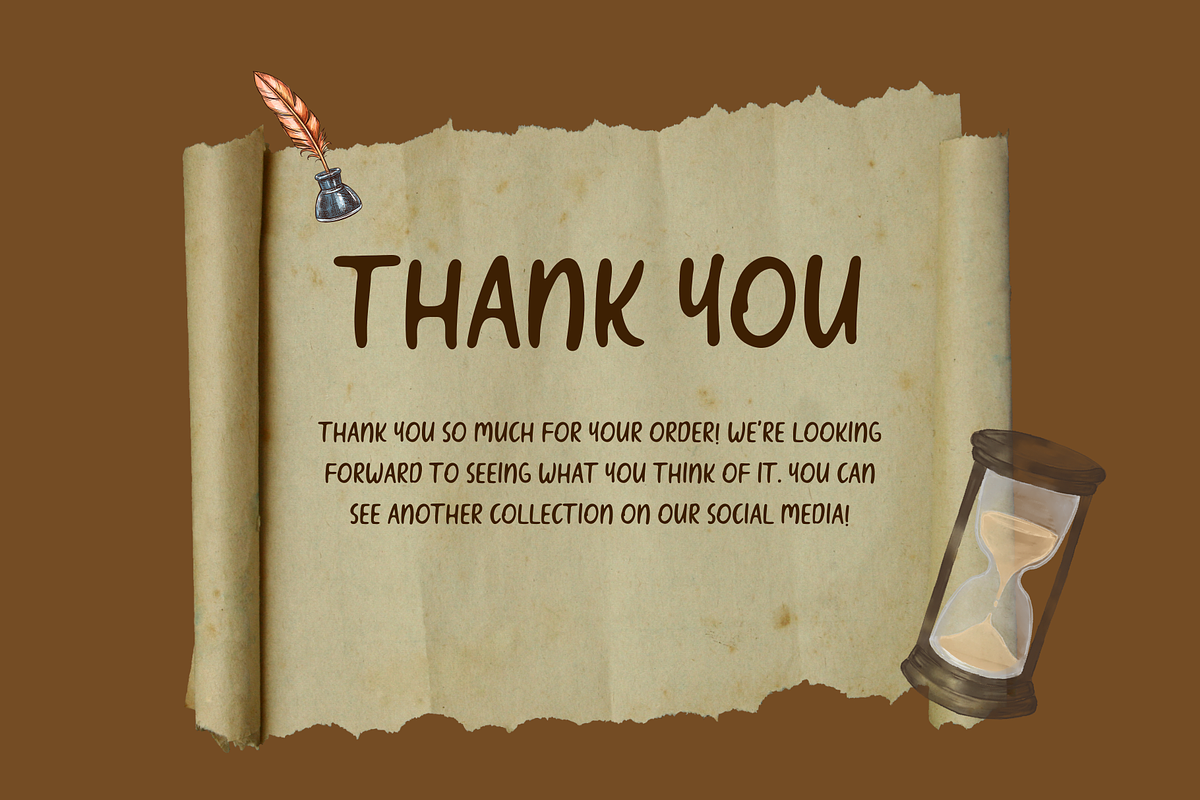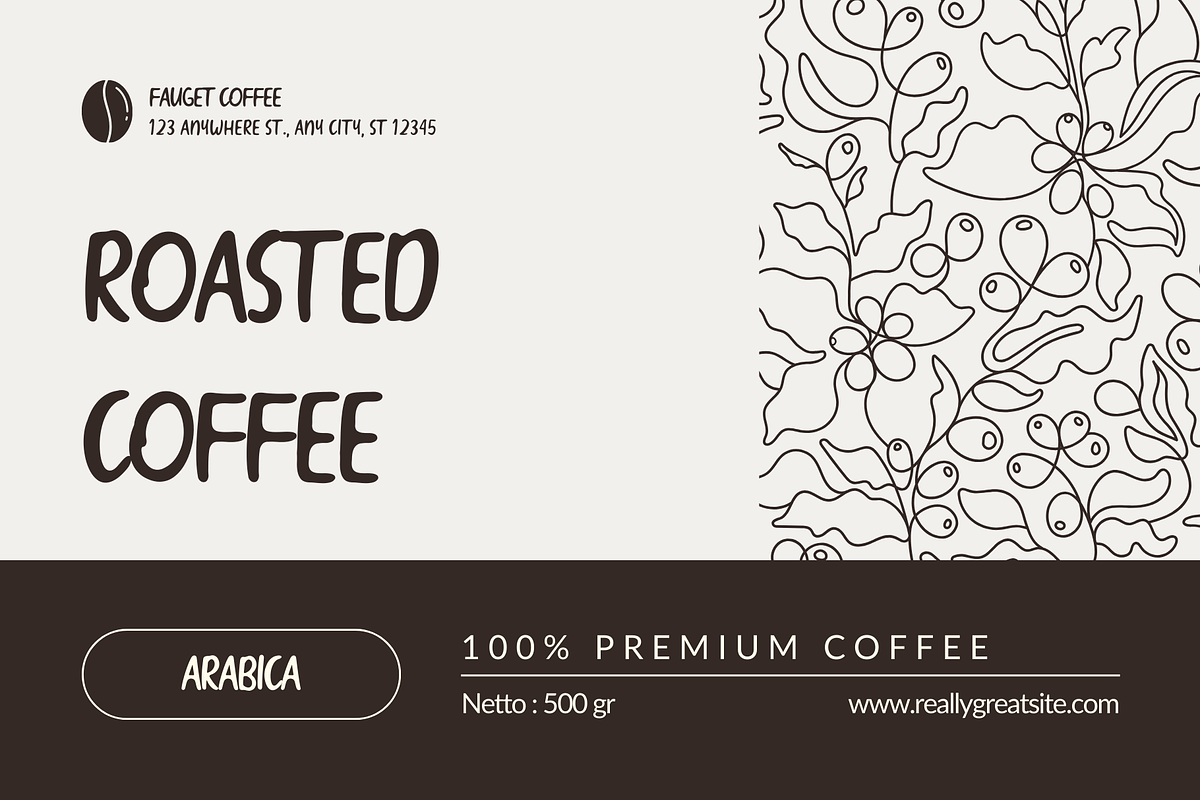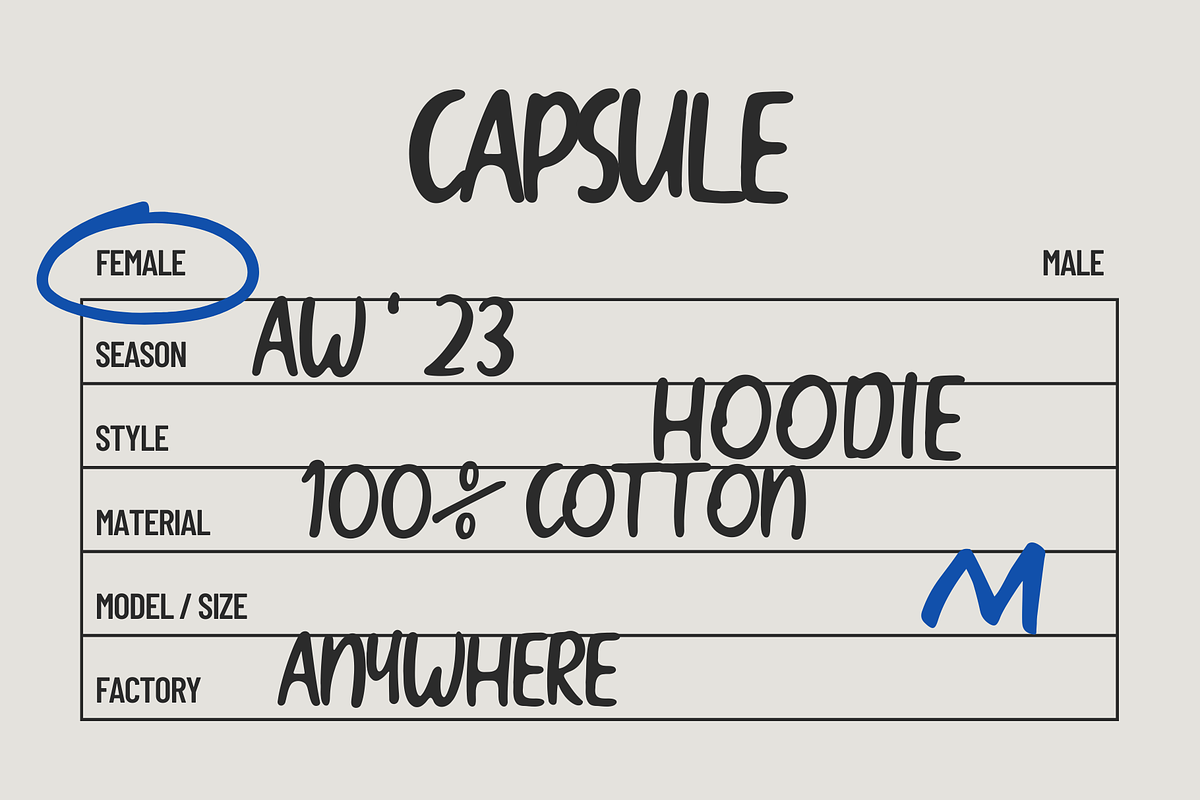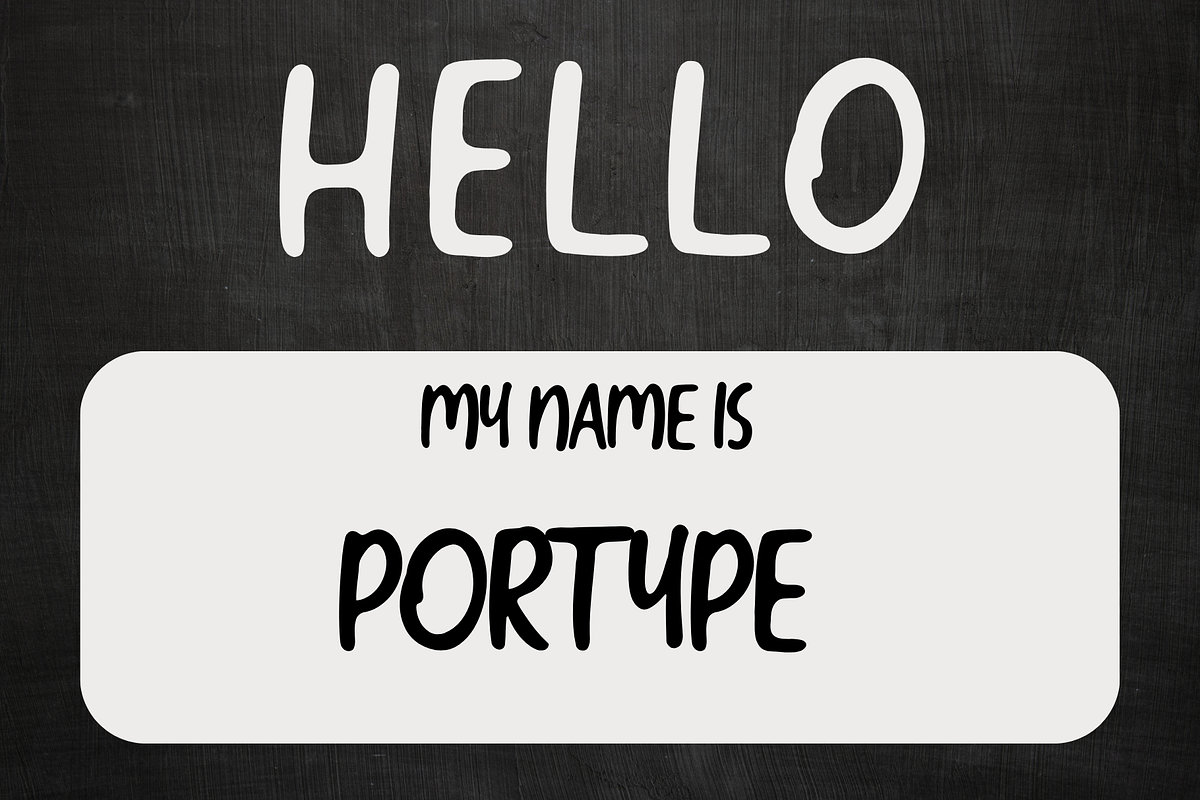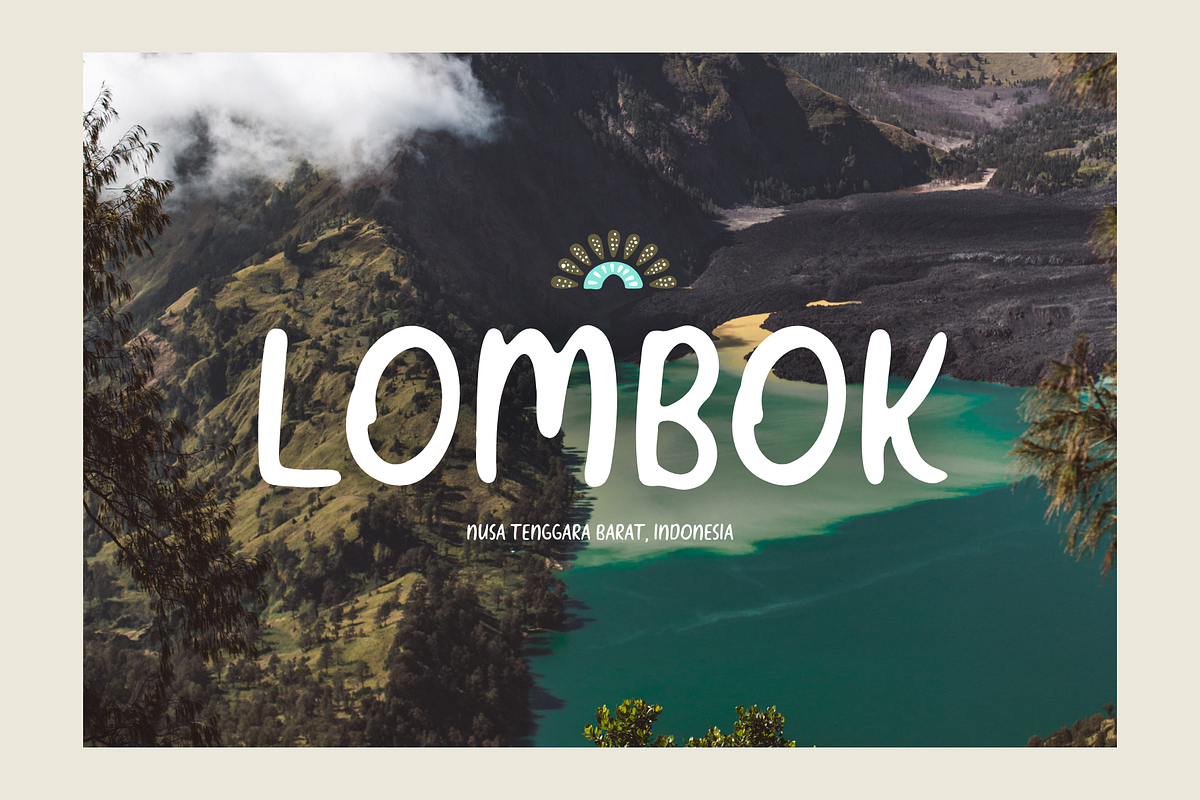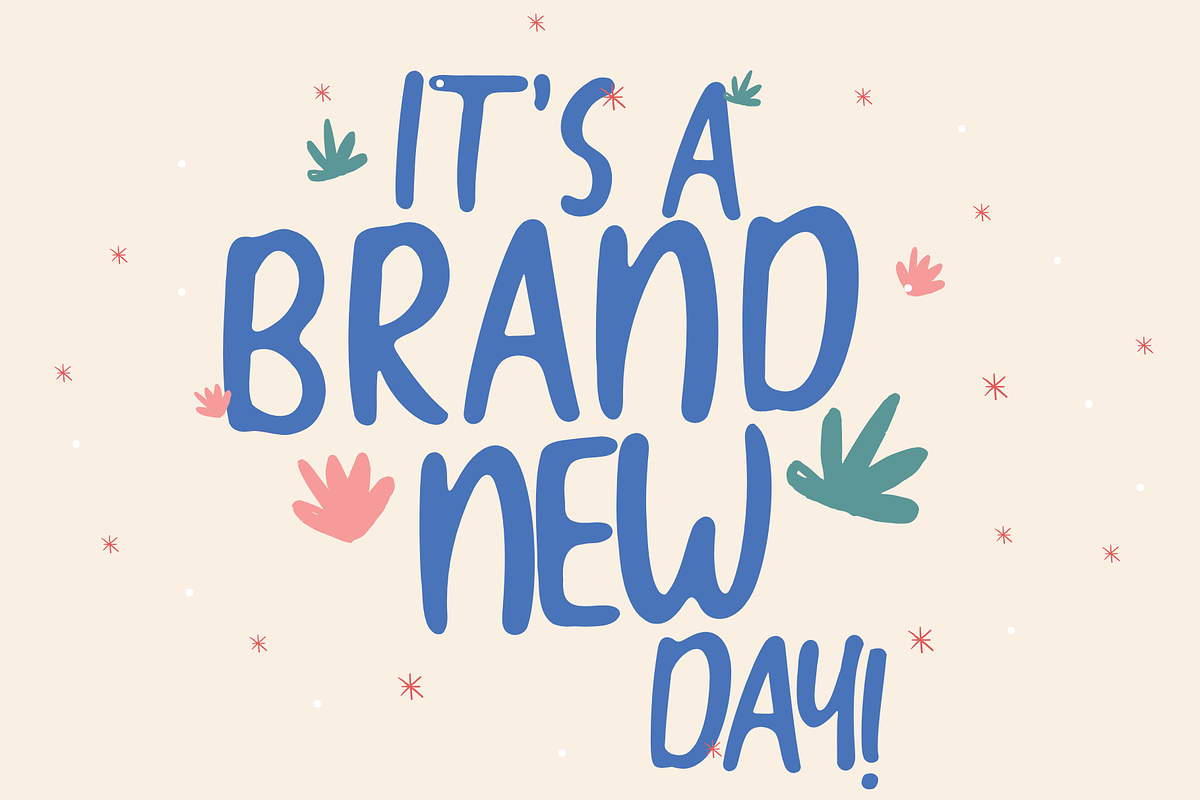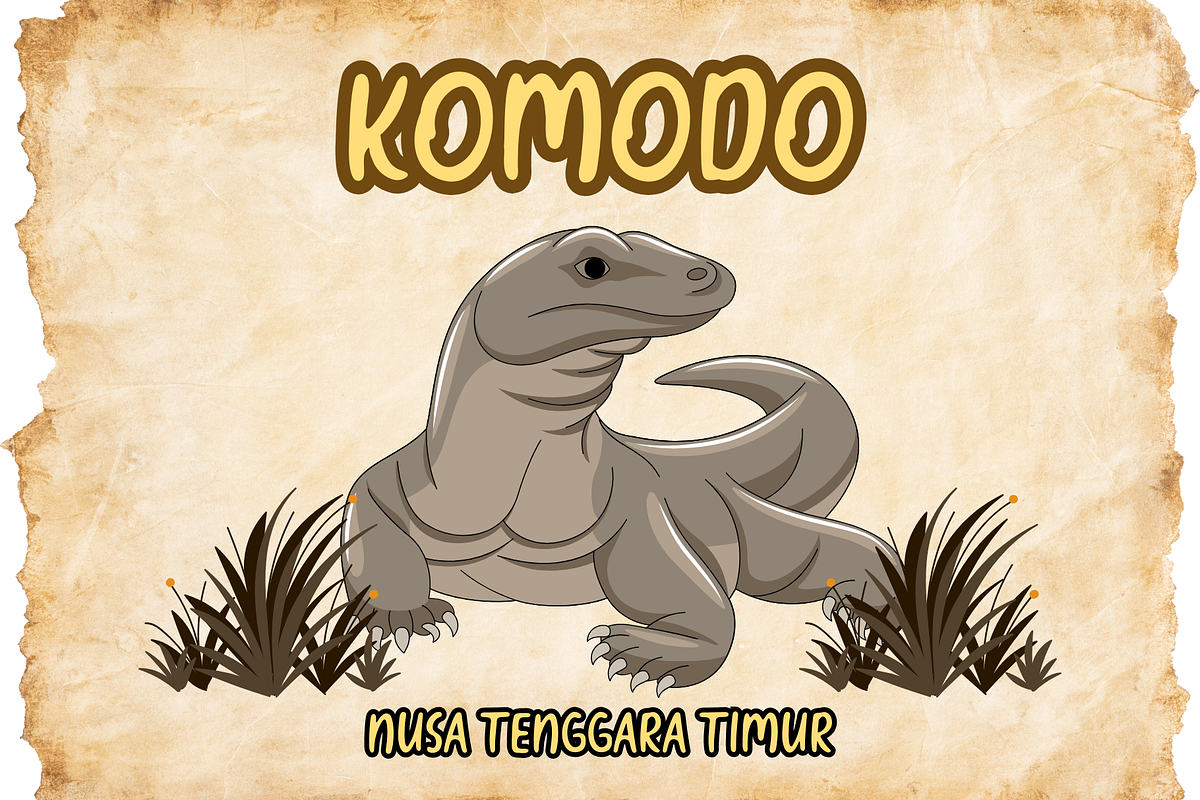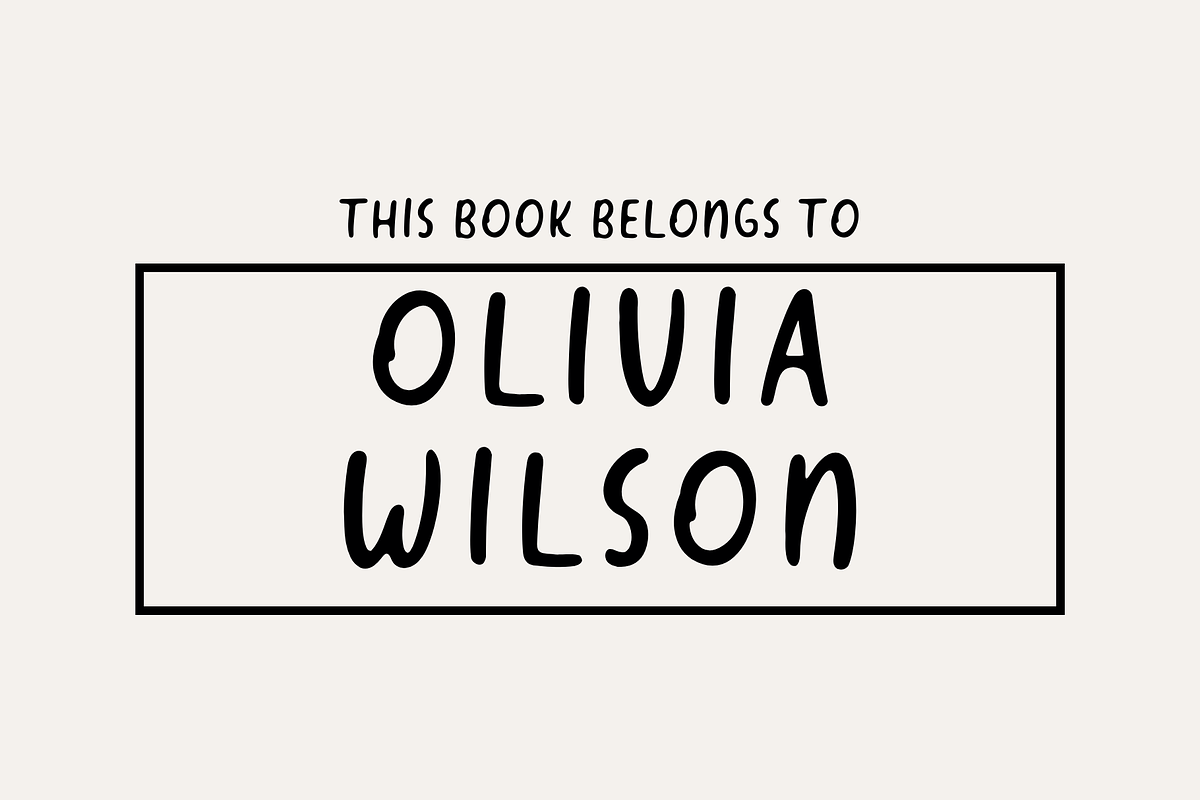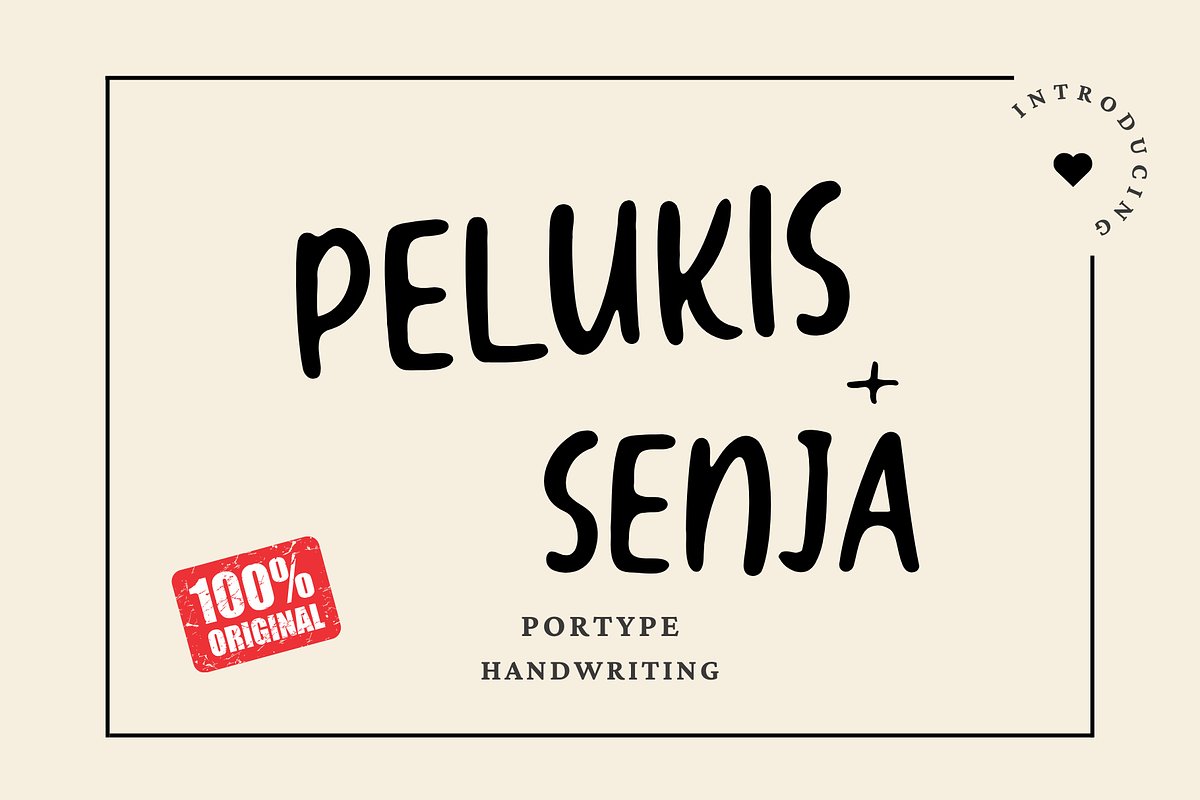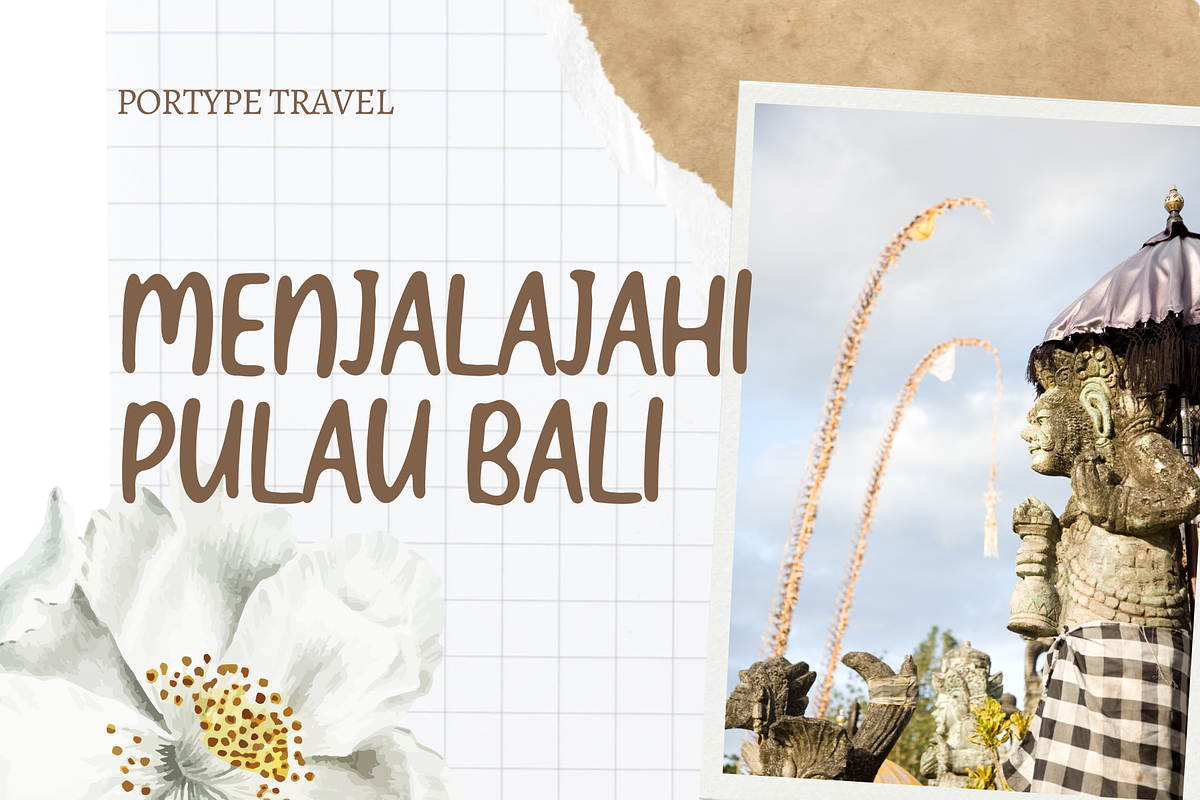
Pelukis Senja - Handwriting
In the vibrant realm of typography, there exists a font that dances with the hues of dusk "Pelukis Senja". With the whimsical charm of a painter's brush, this handwriting font brings forth a tapestry of joy and brightness to every stroke. Each letter, a playful expression, whispers tales of laughter against the backdrop of a setting sun.
Pelukis Senja transcends mere typography. it's a journey through a canvas of emotions, each curve and loop painting a picture of boundless happiness. Like a gentle breeze on a summer evening, it sweeps you away into a world of warmth and delight.
As you delve into the world of Pelukis Senja, every word becomes a radiant masterpiece, a celebration of life's simplest pleasures under the twilight sky. So, let your words dance freely with the effervescence of Pelukis Senja, and watch as they illuminate the world with their cheerful glow.